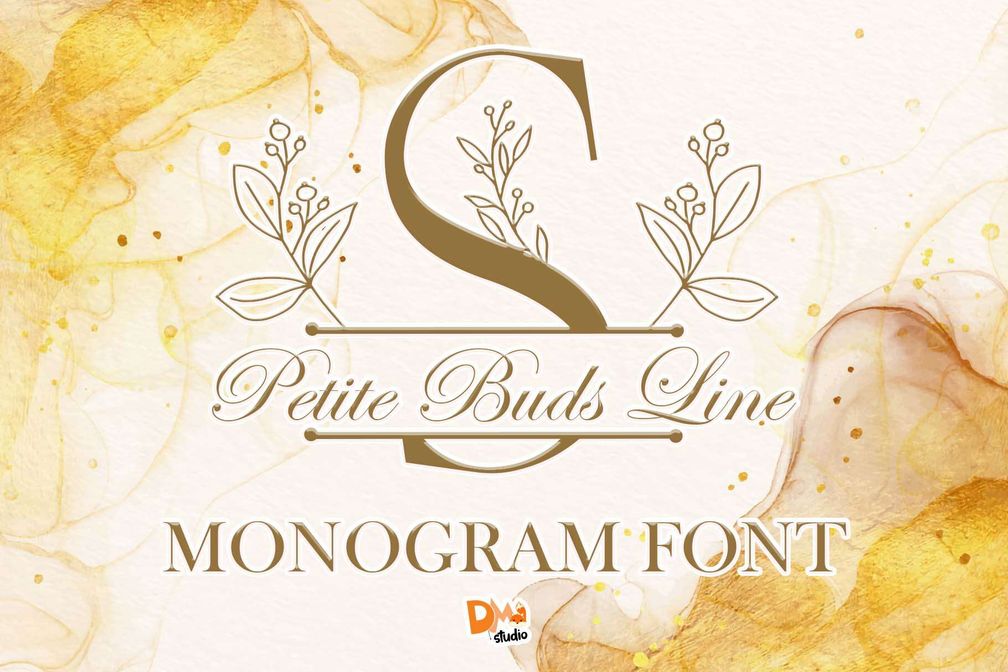
Petite Buds Line Monogram
Petite Buds Line Monogram – Delicate & Floral Monogram Font
Petite Buds Line Monogram is a refined and elegant typeface featuring delicate floral bud-inspired monogram designs. Perfect for wedding invitations, luxury branding, personalized gifts, and sophisticated stationery, this font brings a graceful and artistic touch to any project. Its intricate yet minimal floral details make it an excellent choice for decorative initials and timeless designs.
✔ Delicate Floral Buds Design – Each letter is beautifully crafted with soft, intricate floral line art.
✔ Perfect for Elegant & Luxury Projects – Ideal for wedding monograms, boutique branding, personalized gifts, and artistic designs.
✔ Timeless & Ornamental Aesthetic – A sophisticated blend of minimalism and floral elegance.
✔ Complete Character Set – Includes uppercase, lowercase, numbers, punctuation, and multilingual support.